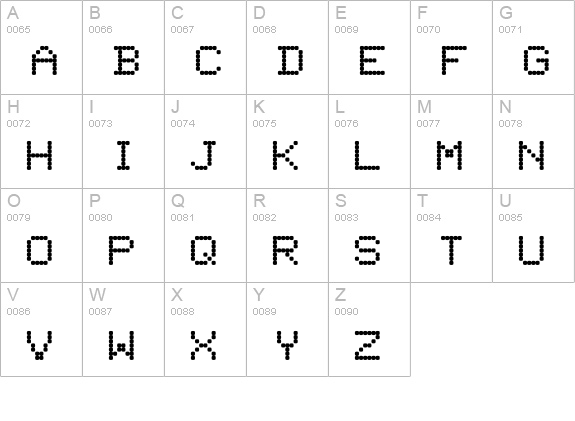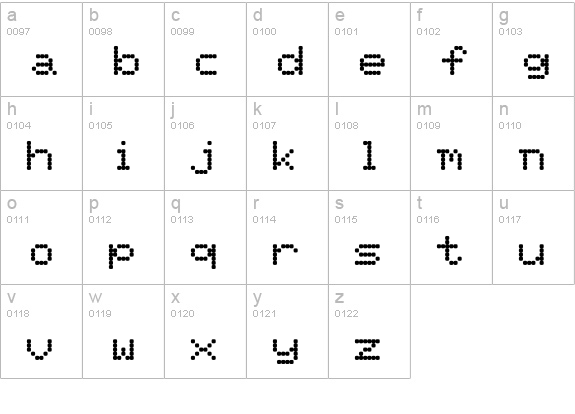
PixelScreen Regular Font Details
PixelScreen Regular is the standard, neutral variant in the PixelScreen typeface family \xE2\x80\x94 well suited to general body text, paragraphs, and standard typographic work.
PixelScreen Regular is a versatile and eye-catching font that is perfect for adding a touch of retro charm to any design project. With its pixelated appearance, this font brings back memories of classic video games and computer screens of the past. Its clean and geometric shapes make it easy to read, while its slightly rounded edges give it a playful and friendly feel. Whether you're designing a website, creating a logo, or crafting a digital artwork, PixelScreen Regular is sure to make a statement. Its unique style will stand out from the crowd and add a nostalgic touch to your design. The best part is that PixelScreen Regular is available for free! You can easily download it at FontsMarket.com, a trusted source for high-quality fonts. With just a few clicks, you can have this fantastic font at your fingertips, ready to bring your designs to life. So why wait? Give your projects a retro twist with PixelScreen Regular. Download it for free today and let your creativity shine!